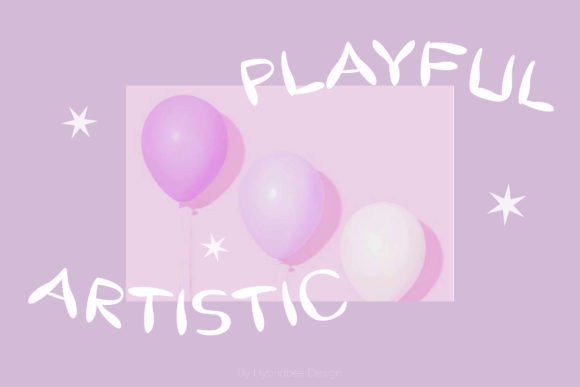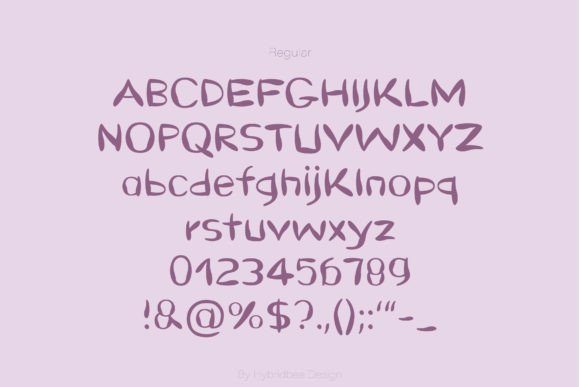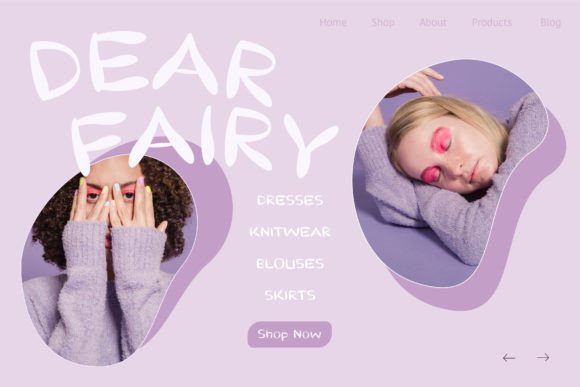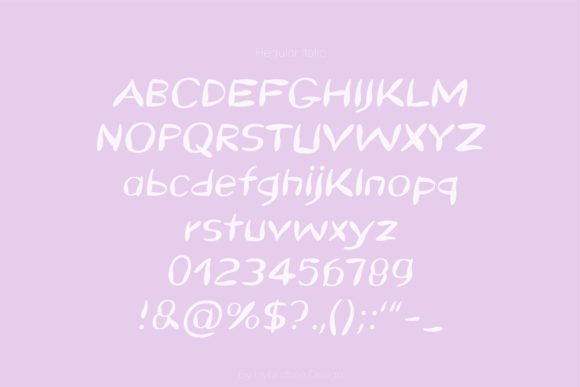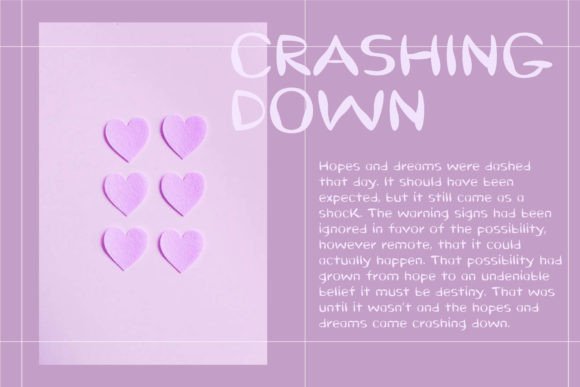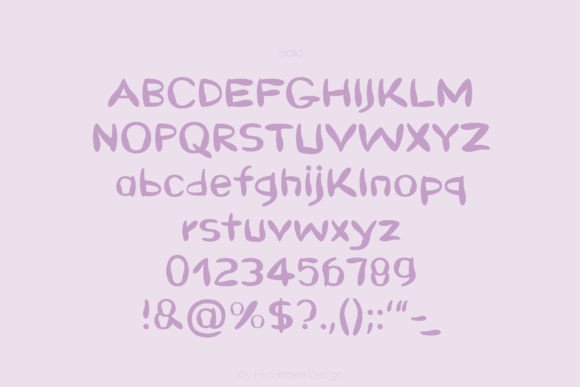
Introducing Grape Candy Font: The Sweetest Addition to Your Design Toolbox
Are you tired of using the same old fonts for your design projects? Look no further than Grape Candy Font, a display font that adds a playful and artistic edge to any design. With its unique blend of whimsy and sophistication, Grape Candy Font is perfect for creating eye-catching posters, headlines, branding, packaging, logos, web design, and more.
What is Grape Candy Font?
Grape Candy Font is a display font designed to make a statement. Its playful and artistic edge makes it perfect for designers and crafters looking to add a touch of personality to their work. The font’s unique design features bold lines, curvaceous shapes, and a dash of playfulness, making it perfect for a wide range of design applications.
Key Features of Grape Candy Font
- Playful and Artistic Edge: Grape Candy Font features a unique blend of playfulness and sophistication, making it perfect for designers looking to add a touch of personality to their work.
- Display Font: Designed specifically for display purposes, Grape Candy Font is perfect for creating eye-catching headlines, posters, and other design elements.
- Versatile: From branding and packaging to logos and web design, Grape Candy Font can be used for a wide range of design applications.
- Easy to Read: Despite its playful design, Grape Candy Font is easy to read, making it perfect for use in a variety of design contexts.
Uses for Grape Candy Font
Grape Candy Font is a versatile font that can be used for a wide range of design applications. Here are just a few ideas to get you started:
- Posters and Flyers: Use Grape Candy Font to create eye-catching posters and flyers that grab attention and make a statement.
- Branding and Packaging: Add a touch of personality to your brand with Grape Candy Font, perfect for use on packaging, labels, and more.
- Logos: Create a unique and memorable logo with Grape Candy Font, perfect for businesses, products, and services.
- Web Design: Use Grape Candy Font to add a touch of whimsy and personality to your website, perfect for headings, titles, and more.
Why Choose Grape Candy Font?
With so many fonts to choose from, why choose Grape Candy Font? Here are just a few reasons why designers and crafters love this font:
- Unique Design: Grape Candy Font features a unique design that’s sure to stand out in a crowd.
- Easy to Use: With its clear and concise design, Grape Candy Font is easy to use and works seamlessly with a variety of design applications.
- Playful and Artistic Edge: Add a touch of personality to your design with Grape Candy Font’s playful and artistic edge.
Tips for Using Grape Candy Font
Here are a few tips for getting the most out of Grape Candy Font:
- Use it Sparingly: Grape Candy Font is a display font, so use it sparingly to make a statement.
- Pair it with Other Fonts: Pair Grape Candy Font with other fonts to create a unique and visually appealing design.
- Experiment with Colors: Grape Candy Font looks great in a variety of colors, so don’t be afraid to experiment and find the perfect hue for your design.
| Font Name | Grape Candy Font |
| Author | Hybridbee Design |
Grape Candy Font is a sweet addition to any design toolbox. With its playful and artistic edge, versatile design, and ease of use, it’s perfect for designers and crafters looking to add a touch of personality to their work. Whether you’re creating posters, headlines, branding, packaging, logos, web design, or more, Grape Candy Font is sure to make a statement.